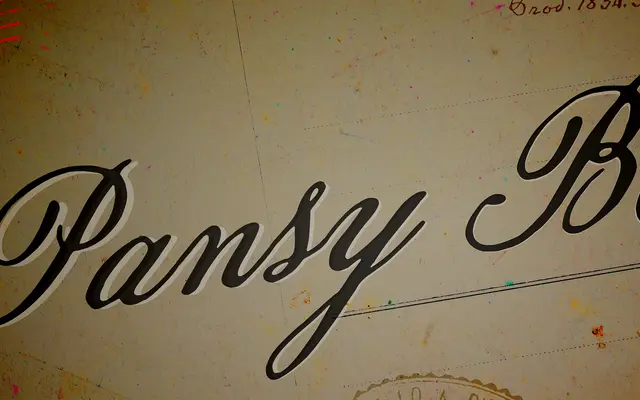
Pansy Bo
A 19th-century-inspired handwritten script with an inky texture that mimics the look of authentic pen calligraphy.
Modelled on 19th-century script styles, Pansy Bo replicates the uneven ink deposit and flowing strokes of period handwriting. The result carries an antique character well-suited to vintage branding, packaging and decorative design work. Its nostalgic quality sits naturally alongside historical imagery and heritage-oriented aesthetics.
Pansy Bo is a script typeface modelled on 19th-century handwriting styles, with an inky texture that simulates authentic pen-written letterforms, placing it firmly in the handwritten script subcategory.